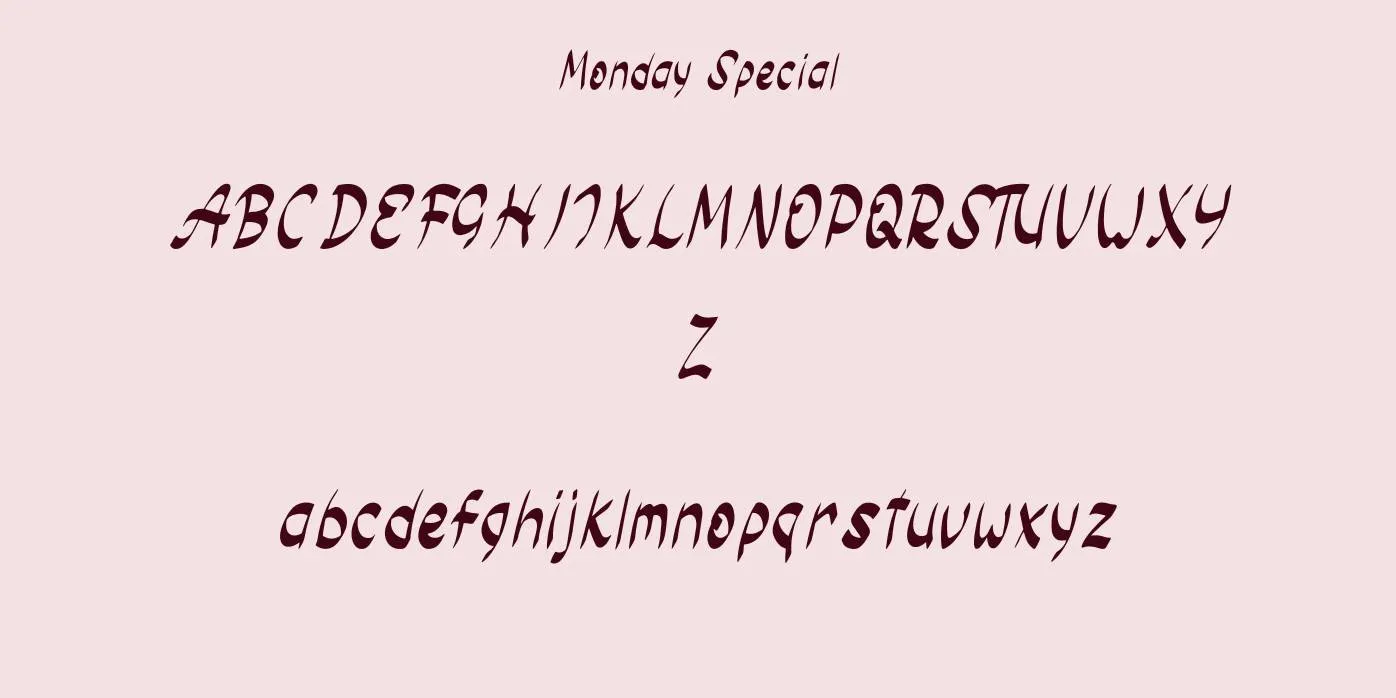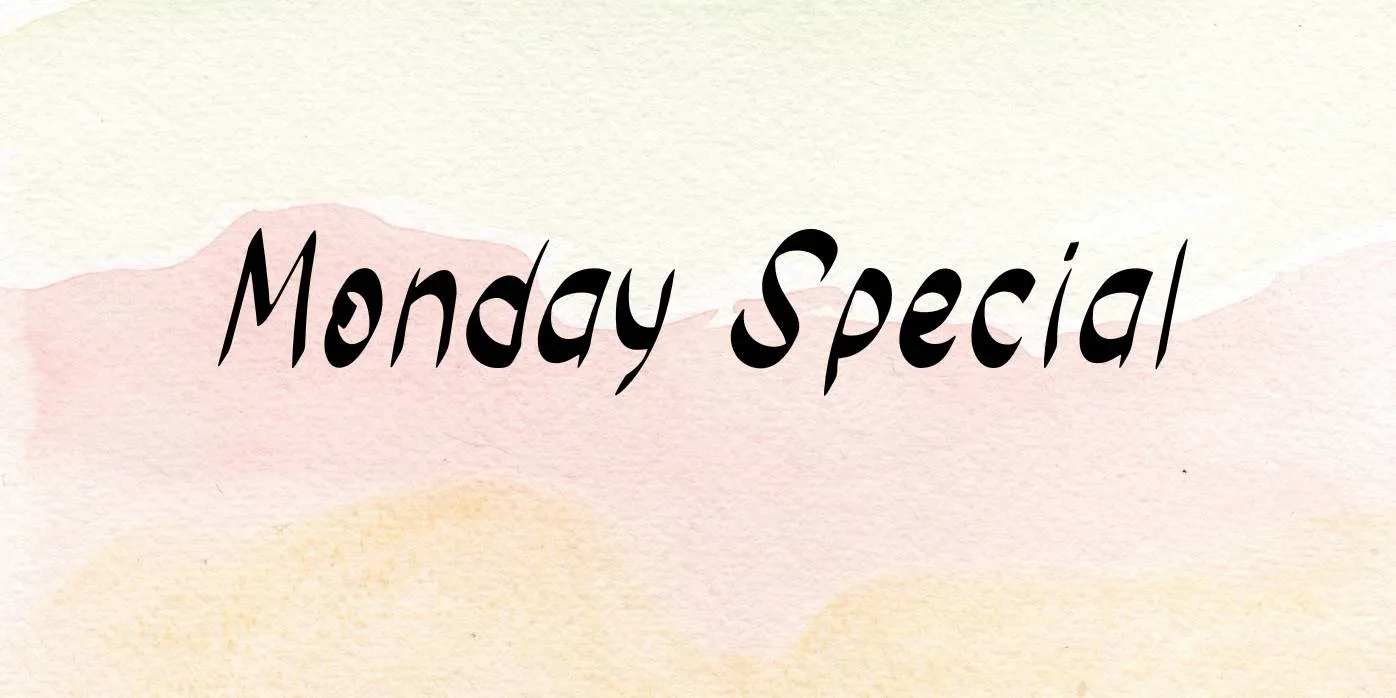
Monday Special Font
Here we discuss detailed information about a stunning typeface Monday Special Font. Rangkai Aksari designed this typeface with a very attractive look. It can be used to design many different projects. This font has many features which make it perfect for use It contains 205 characters, 171 glyphs, and 1000 units per Em.
The weight of the font Semi-Bold and its width is Medium(normal). The pattern nature of writing is Italic. Embedding rights are allowed for preview and printing only. Unicode supported 2.0 and BMP only.
It can also be paired with many fonts but it gives a nice look. It can also read easily even in small sizes. Usage You can use this font to make so many different projects It has many features like It has characters, symbols, numbers, capital letters, small letters, special characters, and punctuations. This stunning typeface can be used to design banners, posters, flyers, and brochures as well.
Attractive sign boards and billboards can also be made by using this font. Invitation cards, postcards, and all other greeting cards can also be made by using this font. For graphic and website designs you can also use it. It can be used to make or edit designs in Adobe Photoshop, CSS, and Canva.
To make book covers, magazine covers and comic book covers you can use this font as well. To label any kind of emoji or design attractive logos you can use this font as well. It is perfect for both types of media Print and digital. You can also use it for advertisement purposes, branding, and product packing.